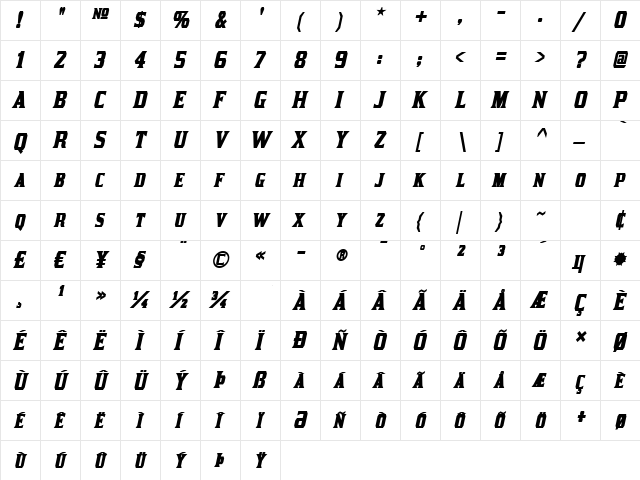
Kirsty Bold Italic
Bold Italic ·  Ray Larabie ·
DesignerRay Larabie
Design Context for Kirsty Typeface
Kirsty is a composed and adaptable typeface that performs quietly and consistently across a wide range of design contexts. Its italic angle brings a sense of urgency and motion to the letterforms. The heavy weight commands attention and anchors typographic hierarchies.